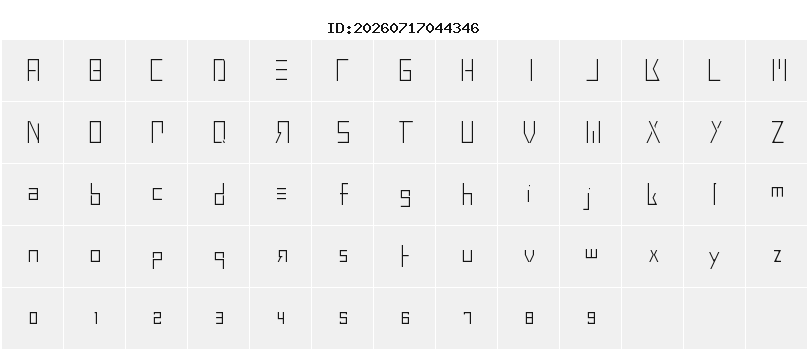
• Font Name: Buprestid css226
• Full Font Name: Buprestid css226 Regular
• Designer: Chanatip Wilangka
• Description: ‚ÄúBuprestid css226‚Äù was built with FontStruct
About Buprestid css226.ttf
Buprestid css226.ttf is a modern, elegant sans-serif font designed for ultimate readability and visual harmony. Perfect for branding, headlines, web design, and print materials.